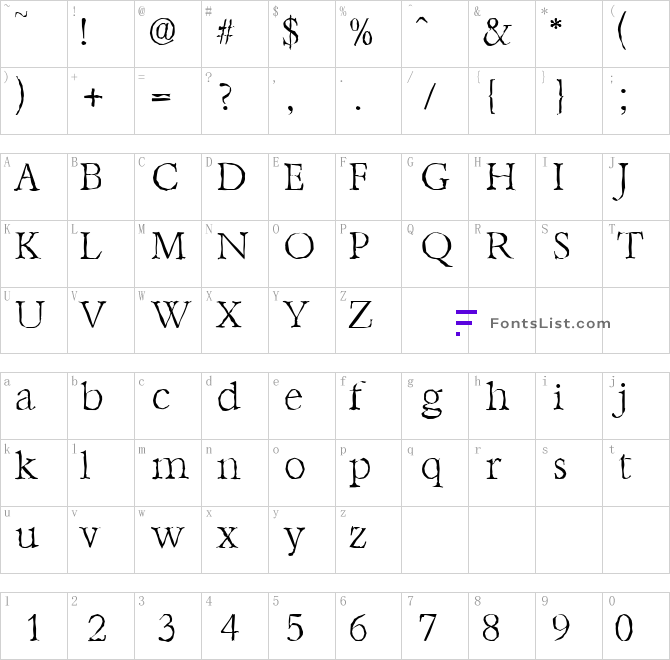
AndrewBeckerAntique-Xlight-Regular.ttf is a very beautiful artistic font, AndrewBeckerAntique-Xlight-Regular.ttf is widely used in the design and printing of various books and pictures,AndrewBeckerAntique-Xlight-Regular.ttf has a strong visual impact,AndrewBeckerAntique-Xlight-Regular.ttf is a commonly used font in newspapers, magazines and books, and is used in posters, e-commerce Poster design, store design, logo design, font design and other fields.AndrewBeckerAntique-Xlight-Regular.